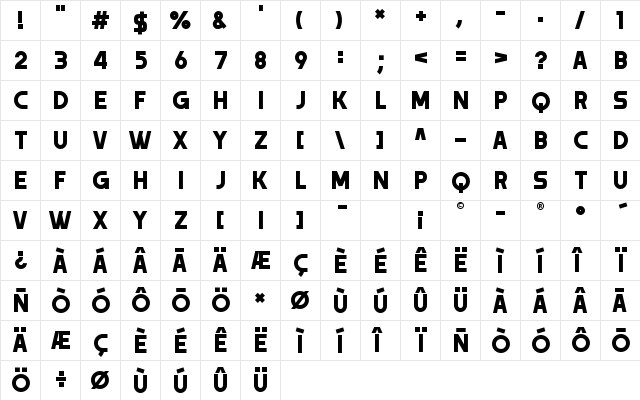
Trender Regular
| Designer | Vasily Draigo aka Daymarius |
Design Context for Trender Typeface
Trender is a composed and adaptable typeface that performs quietly and consistently across a wide range of design contexts.